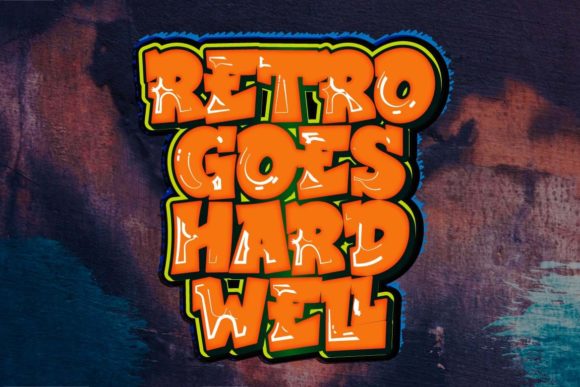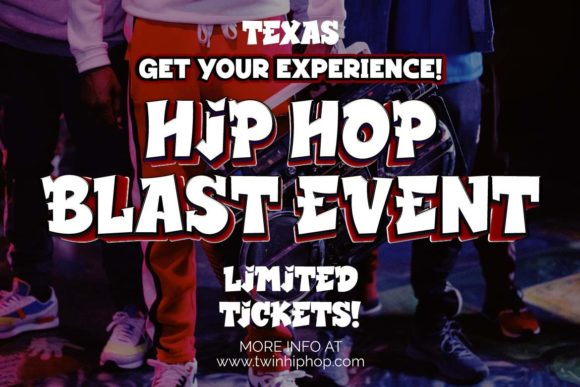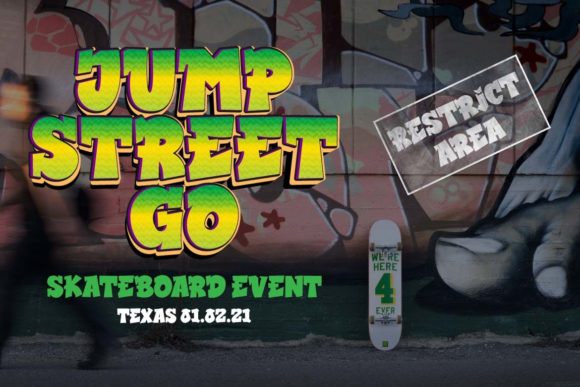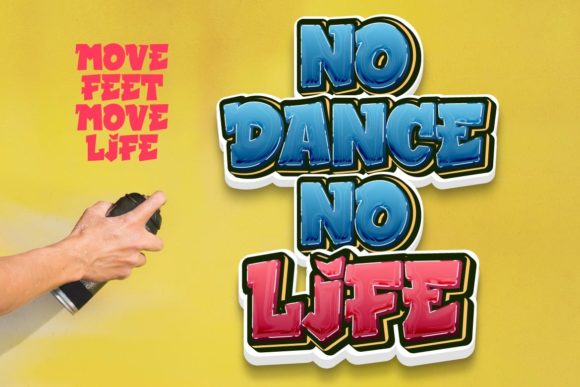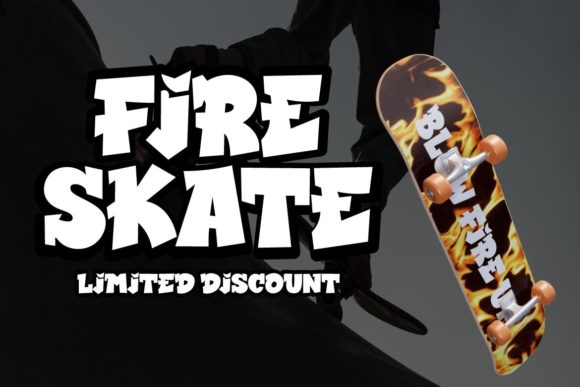
Delliger Font: Add a Playful Touch to Your Designs
Are you looking for a font that can add a dash of playfulness and authenticity to your designs? Look no further than the Delliger Font! This graffiti-styled and colorful display font is perfect for any children activity or school project. Its chunky lettered design makes it a great choice for designers and crafters who want to create fun and engaging visuals.
What is Delliger Font?
Delliger Font is a unique and vibrant display font that is designed to make your designs come alive. Its graffiti-styled letters are carefully crafted to give your text a playful and carefree feel. The font’s chunky design makes it perfect for use in children’s activities, school projects, and any other design that requires a fun and youthful touch.
Key Features of Delliger Font
- Graffiti-styled letters: Delliger Font features graffiti-styled letters that give your text a playful and authentic feel.
- Colorful design: The font’s colorful design makes it perfect for use in designs that require a pop of color.
- Chunky lettered design: The font’s chunky lettered design makes it easy to read and perfect for use in children’s activities and school projects.
- Playful and authentic feel: Delliger Font embodies playfulness and authenticity, making it perfect for designers and crafters who want to create fun and engaging visuals.
Why Use Delliger Font?
There are many reasons why you should consider using Delliger Font in your designs. Here are a few:
- Perfect for children’s activities: Delliger Font is perfect for use in children’s activities such as worksheets, coloring pages, and activity sheets.
- Great for school projects: The font’s playful and authentic feel makes it perfect for use in school projects such as posters, presentations, and reports.
- Adds a playful touch to designs: Delliger Font adds a playful touch to your designs, making them more engaging and fun to look at.
- Easy to read: The font’s chunky lettered design makes it easy to read, even from a distance.
How to Use Delliger Font
Using Delliger Font is easy! Here are a few tips to get you started:
- Use it in children’s activities: Use Delliger Font in children’s activities such as worksheets, coloring pages, and activity sheets.
- Add it to school projects: Add Delliger Font to school projects such as posters, presentations, and reports to give them a playful touch.
- Experiment with different colors: Experiment with different colors to find the perfect combination for your design.
- Pair it with other fonts: Pair Delliger Font with other fonts to create a unique and visually appealing design.
In conclusion, Delliger Font is a unique and vibrant display font that is perfect for designers and crafters who want to add a playful touch to their designs. Its graffiti-styled letters, colorful design, and chunky lettered design make it perfect for use in children’s activities and school projects. With its playful and authentic feel, Delliger Font is sure to make your designs come alive!